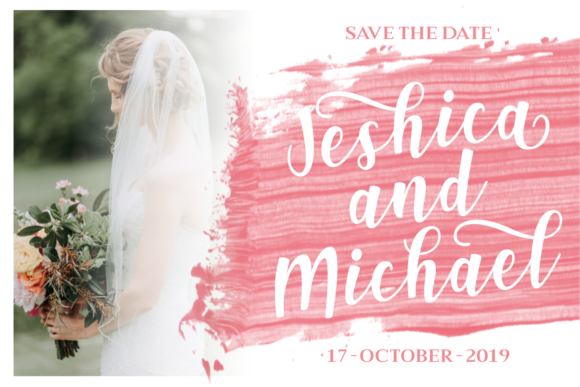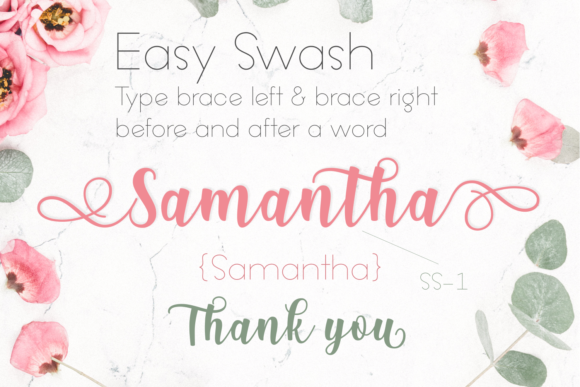
Shink Font
About Shink Font
Shink is a beautiful script font which is full of swirly alternates.
Shink will add a sexy, feminine look to your designs in an instant. Because Shink is very legible, it can be used for both personal projects as well as business orientated designs.